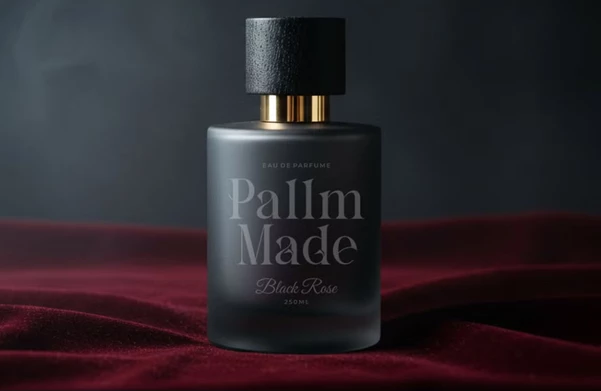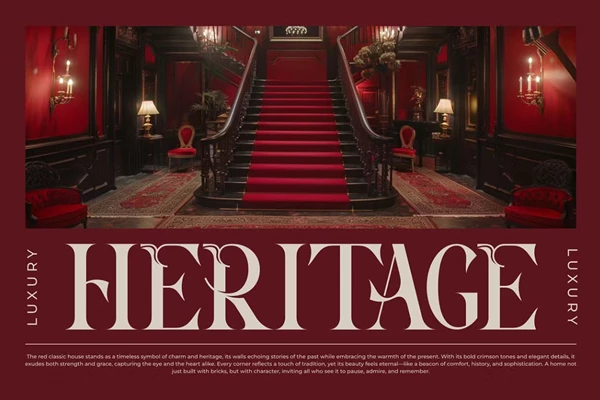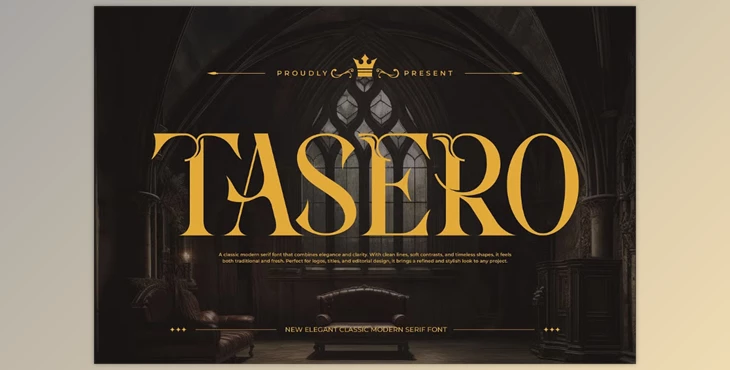
Tasero || Modern Classy Serif Font:
Modern and elegant, the Tasero Serif typeface is perfect for anything from branding and logos to business cards and book covers. It's a sophisticated, smooth design that's perfect for the branding project that needs that little extra something. The charming appeal of its characters and the inclusion of ligatures make Tasero Serif perfect for the design project, ranging from an invitation card to a movie title or branding endeavors for the ideal name.
Some great features of Tasero || Modern Classy Serif Font:
- Stylish ligatures
- Uppercase and lowercase
- Numbers and punctuation